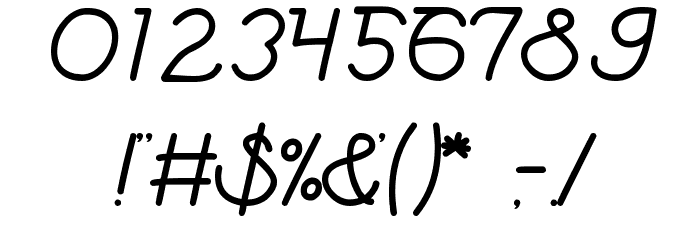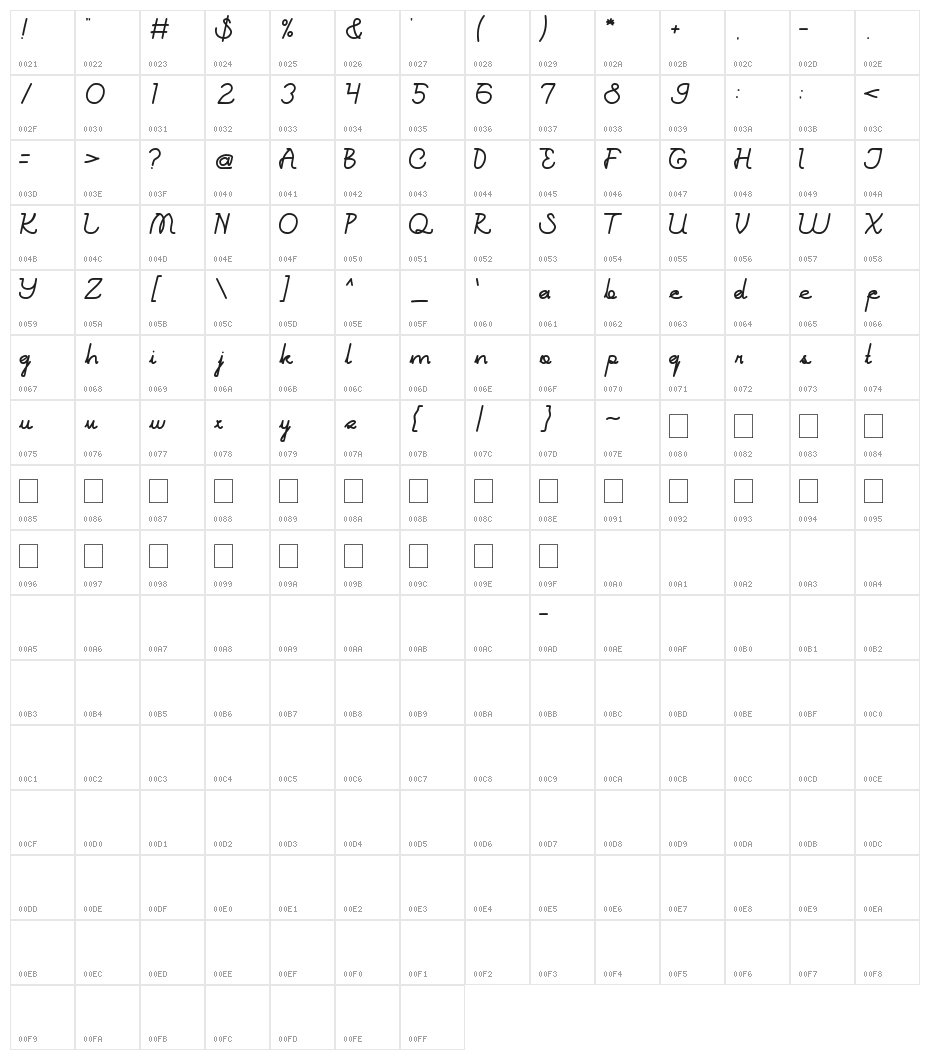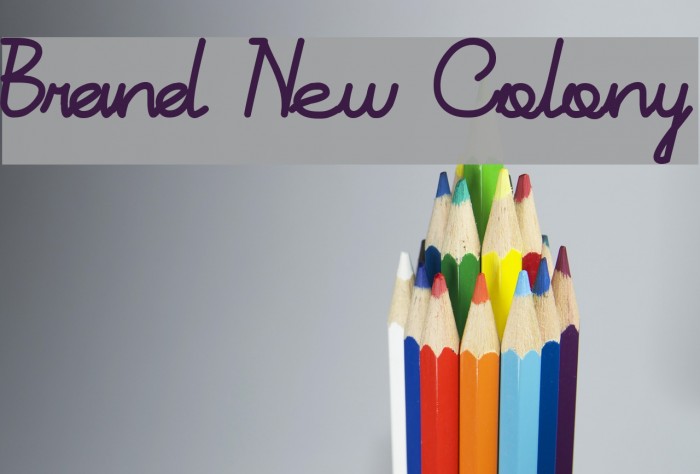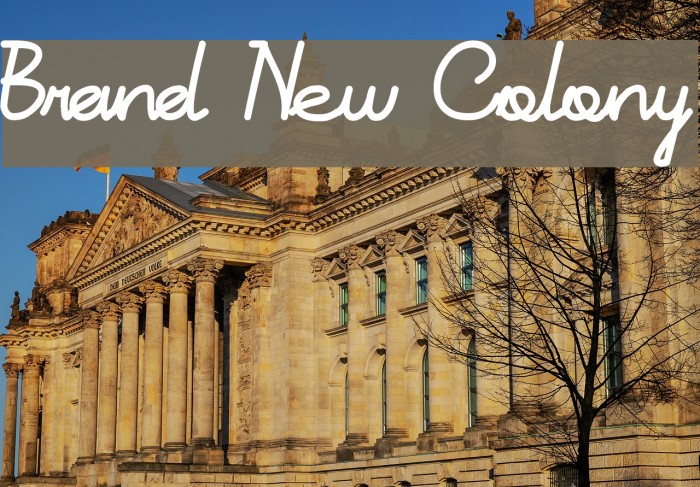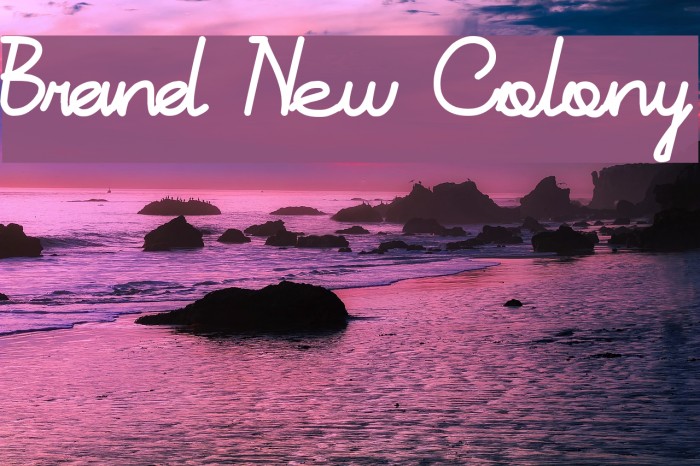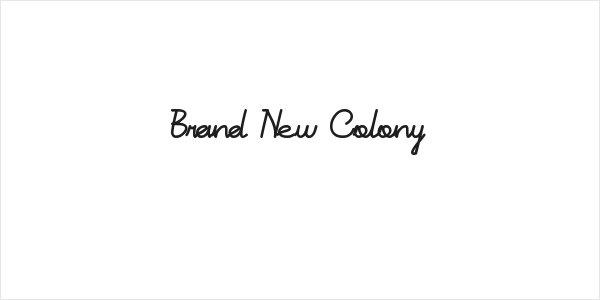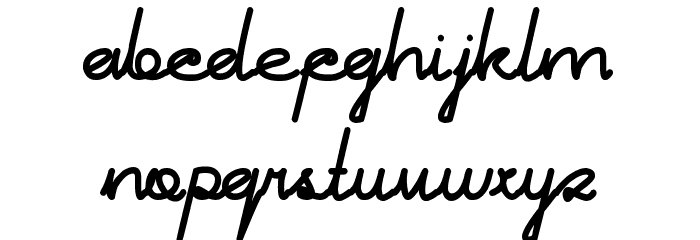
Brand New Colony Font
Brand New Colony Description
This font features a playful and modern script style with a handwritten appearance. The uppercase letters are bold and slightly slanted, giving a dynamic and energetic feel. The lowercase letters maintain a consistent flow, with smooth curves and loops that enhance readability. Numbers are clear and distinct, matching the overall style of the letters. Special characters are well-integrated, maintaining the font's cohesive look. The font's design is suitable for projects that require a personal touch, such as invitations, greeting cards, or creative branding.